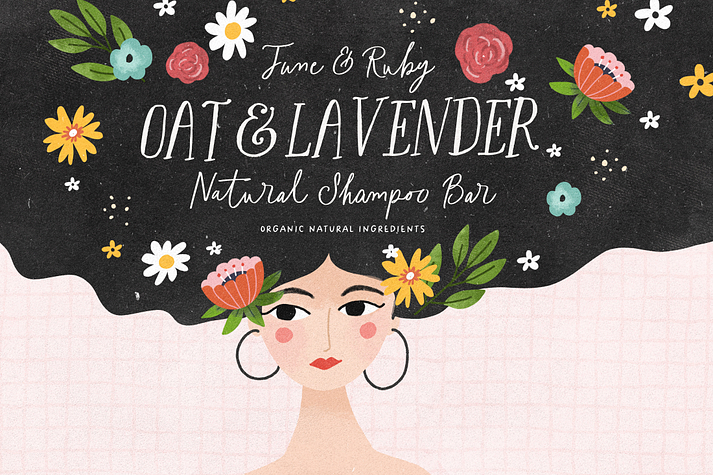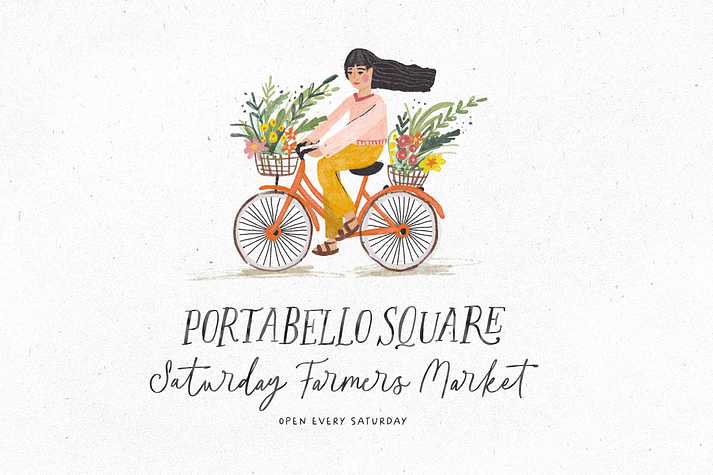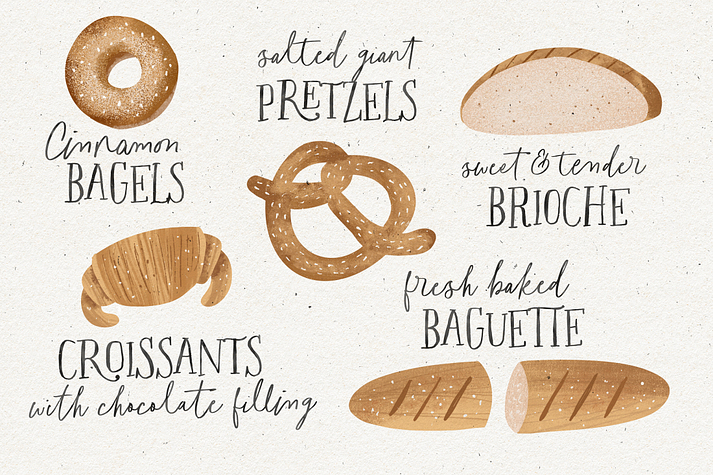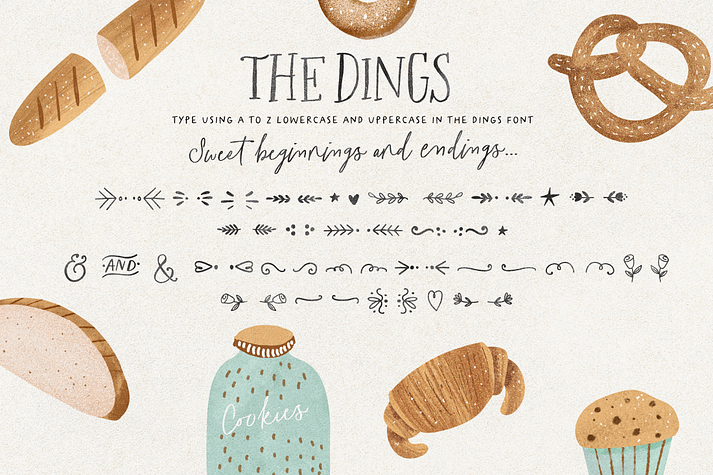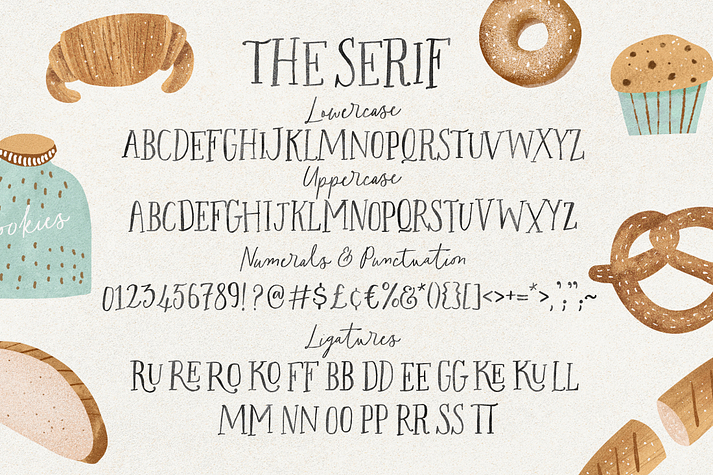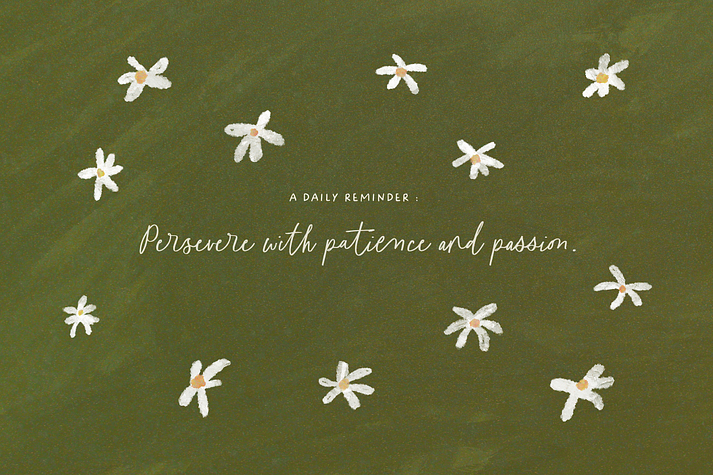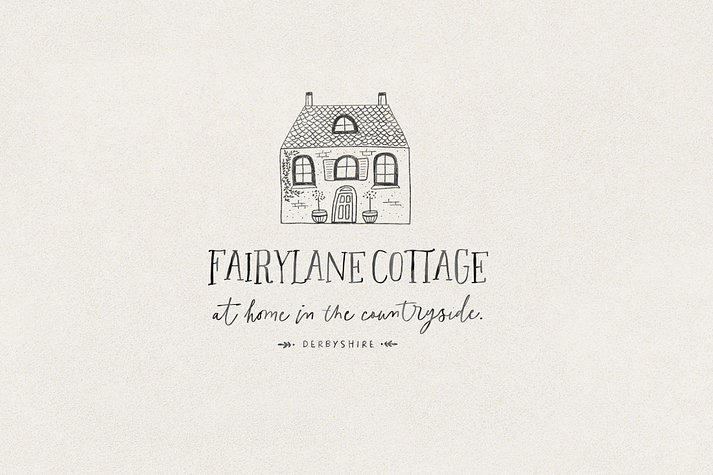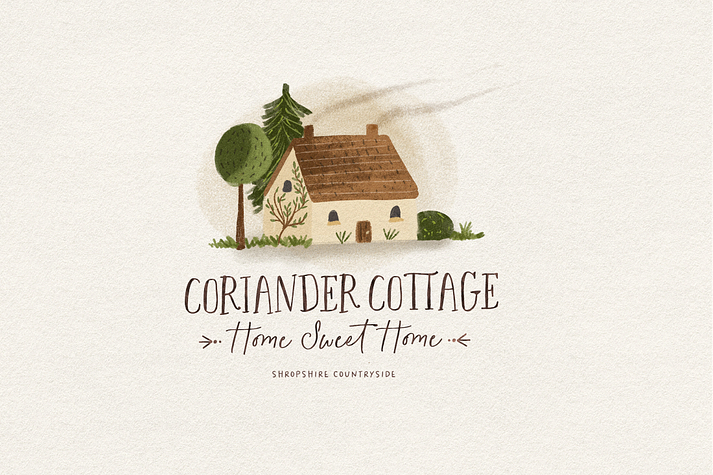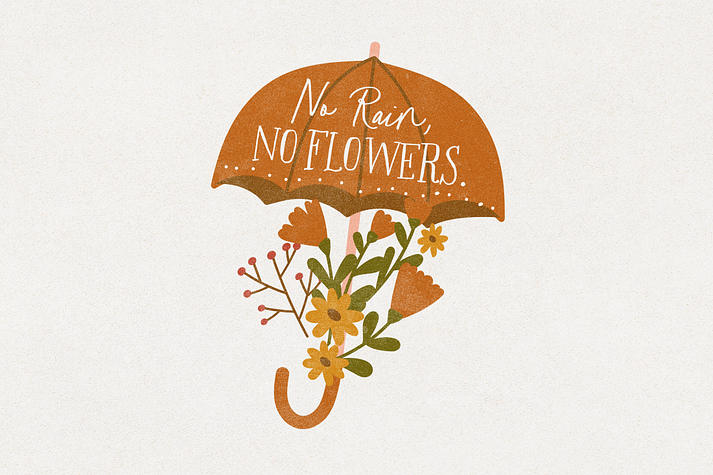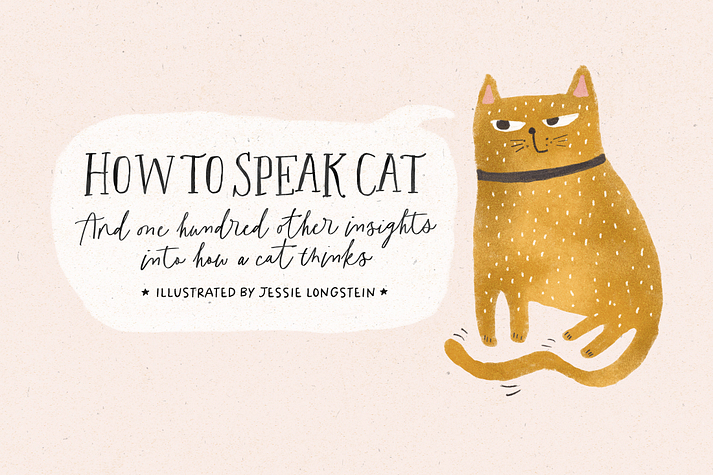
Freshly Baked
Freshly Baked is a font family. This typeface has six styles and was published by Nicky Laatz.
Say hello to the Freshly Baked Font Trio! 3 Delightfully handwritten fonts, with a sweet little dingbat ornament font too :)
The Serif and the Script have a wonderful selection of Opentype Ligatures - make sure you have your ligatures switched on as you type if you would like to see them :)
Quaint and quirky, the Freshly Baked Font trio is perfect for Greetings, Adding to Illustrations, Children’s Books, delightful packaging, labels, logos and so much more :)
• Freshly Baked Serif
• Freshly Baked Serif Slanted
• Freshly Baked Sans
• Freshly Baked Sans Slanted
• Freshly Baked Script
• Freshly Baked Dings
• What are Opentype Ligatures? They are the fancy ‘double or triple letters’ specially designed to fit with each other in a pretty way. For example, the ‘Ro’ in the Serif font has the ‘R’ wrapping under the ‘o’ slightly in it’s ligature.